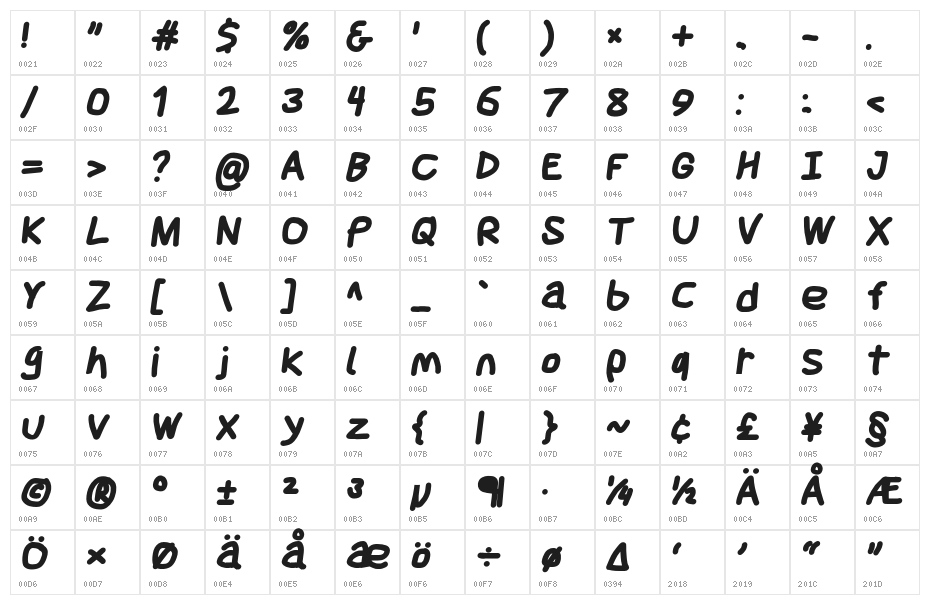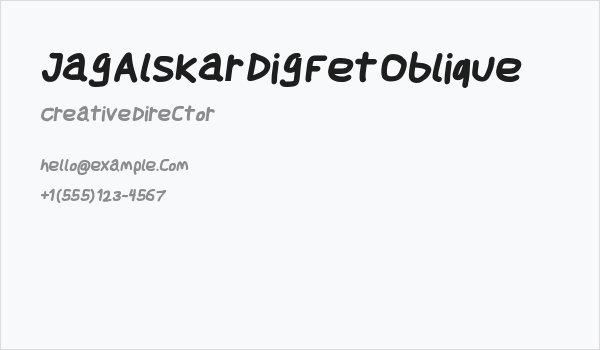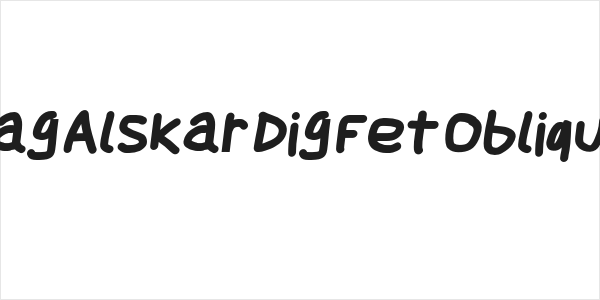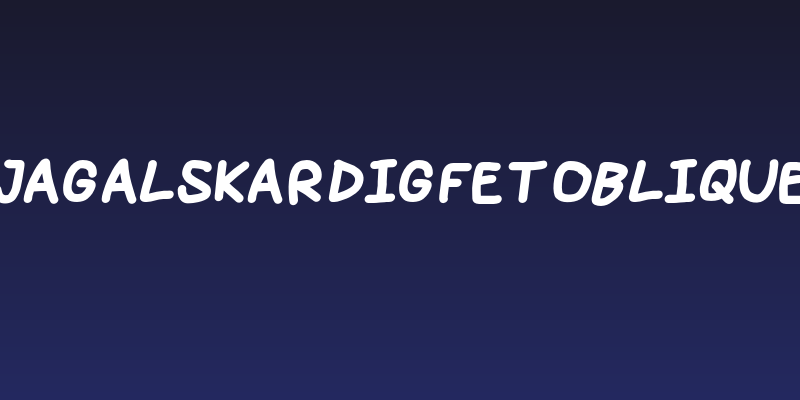
Jag Alskar Dig Fet Oblique Font
Jag Alskar Dig Fet Oblique Description
This font features a bold and playful handwritten style with a slight oblique slant, giving it a dynamic and energetic appearance. The characters are rounded and thick, providing a friendly and approachable feel. The uppercase and lowercase letters maintain consistent proportions, while the numerals and special characters are designed to match the overall aesthetic. The font's informal style makes it suitable for casual and creative projects, adding a touch of personality and warmth to any design.
| Overall Style | Playful, Informal |
| Proposed Projects | Ideal for children's books, greeting cards, playful branding, and informal posters. |